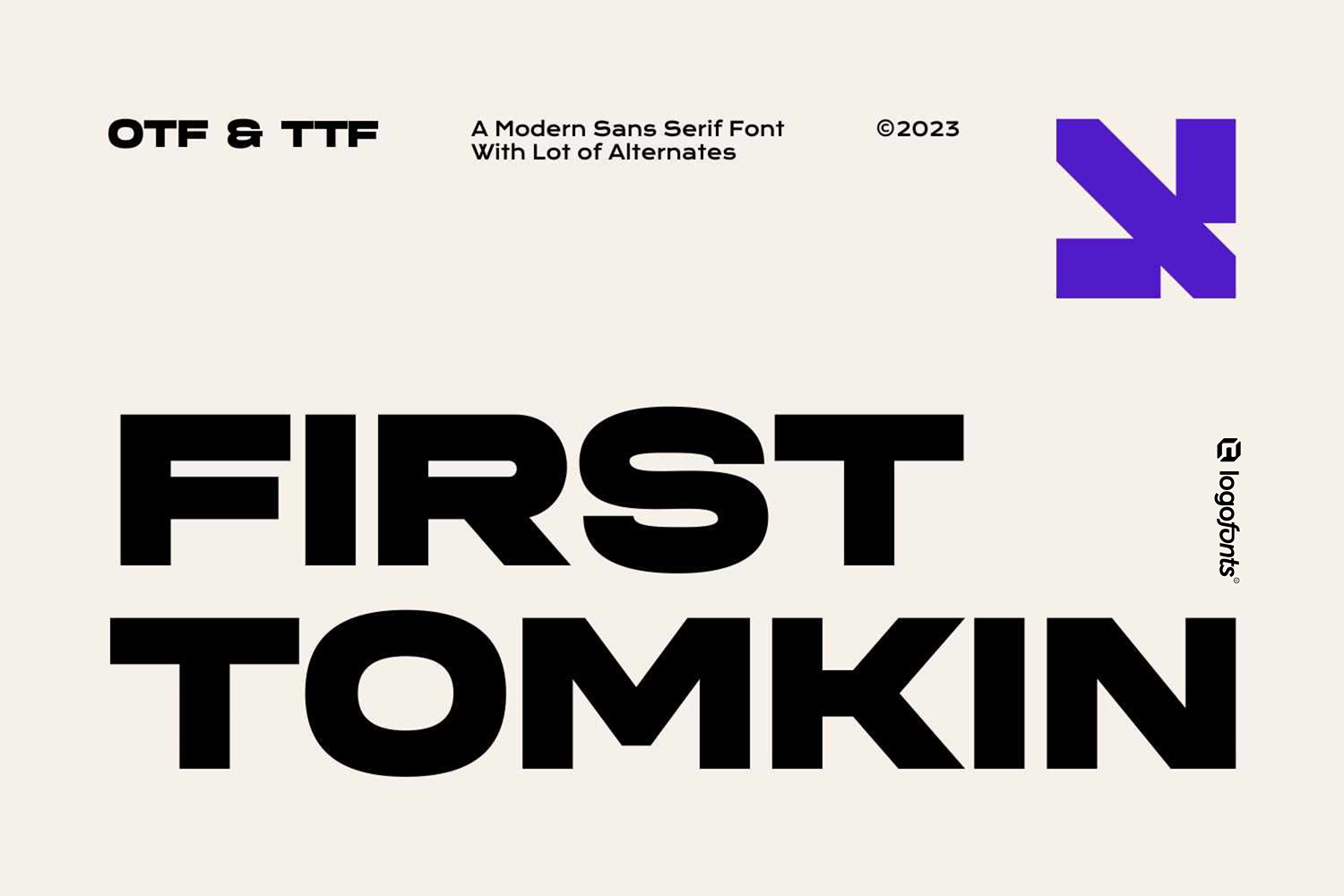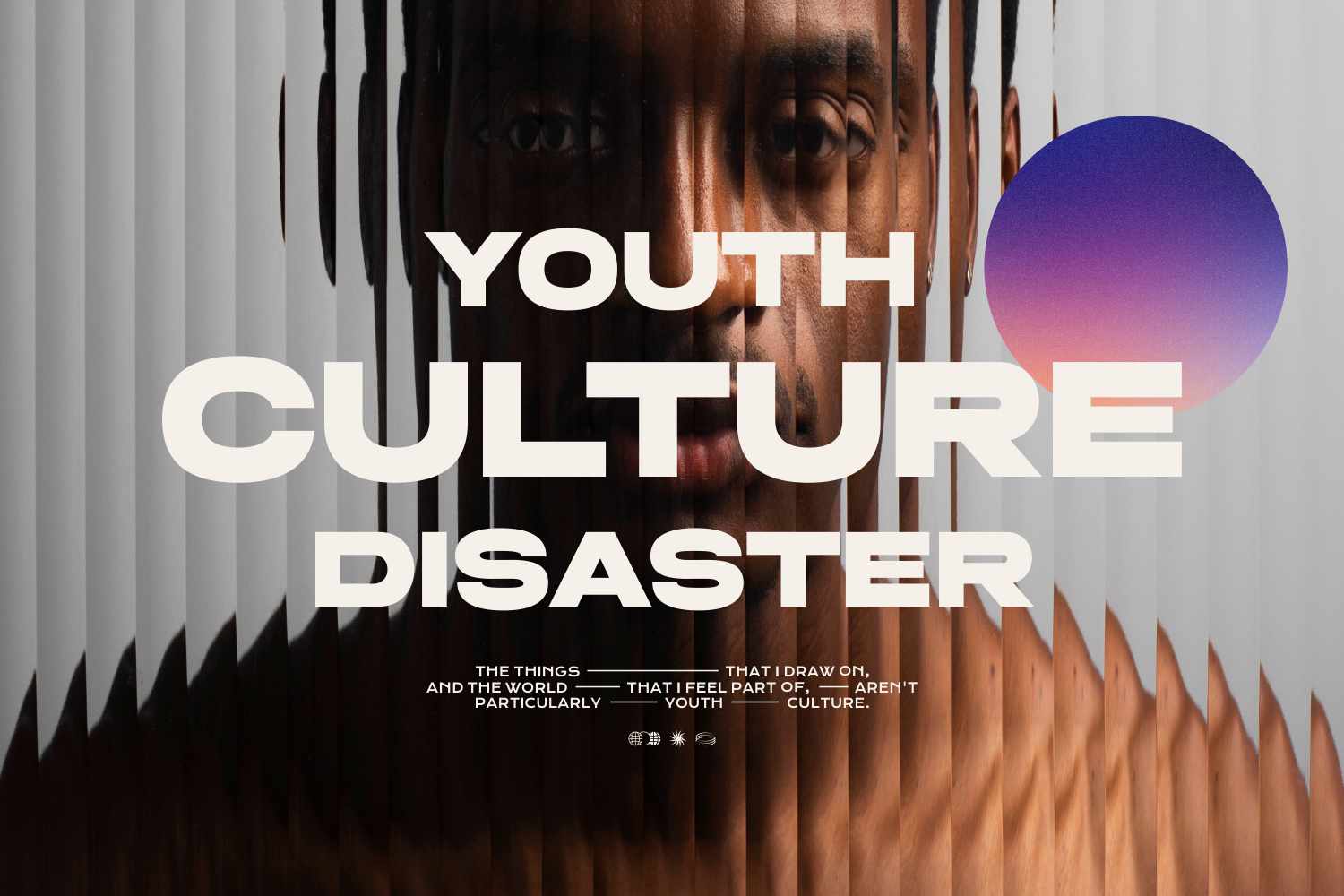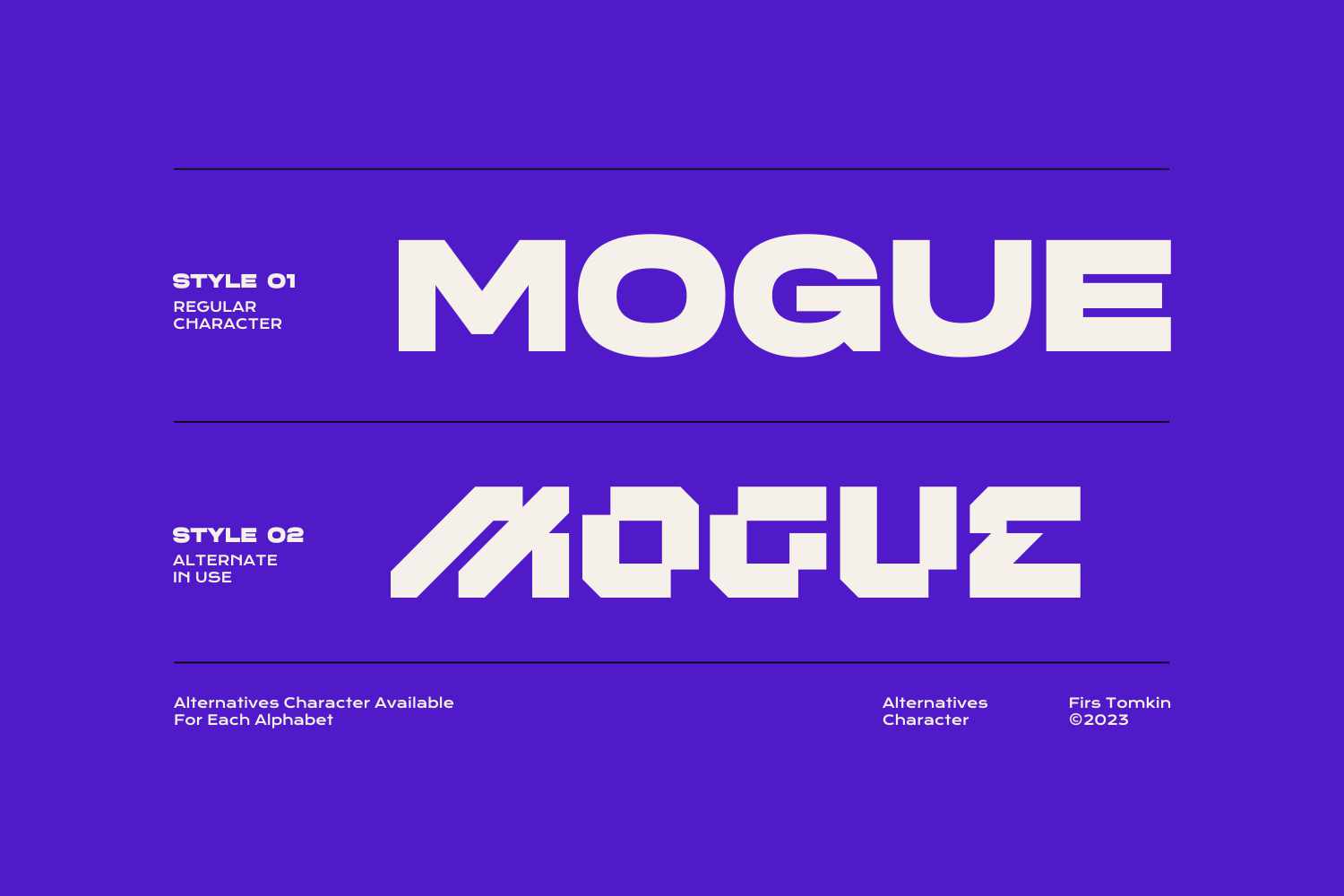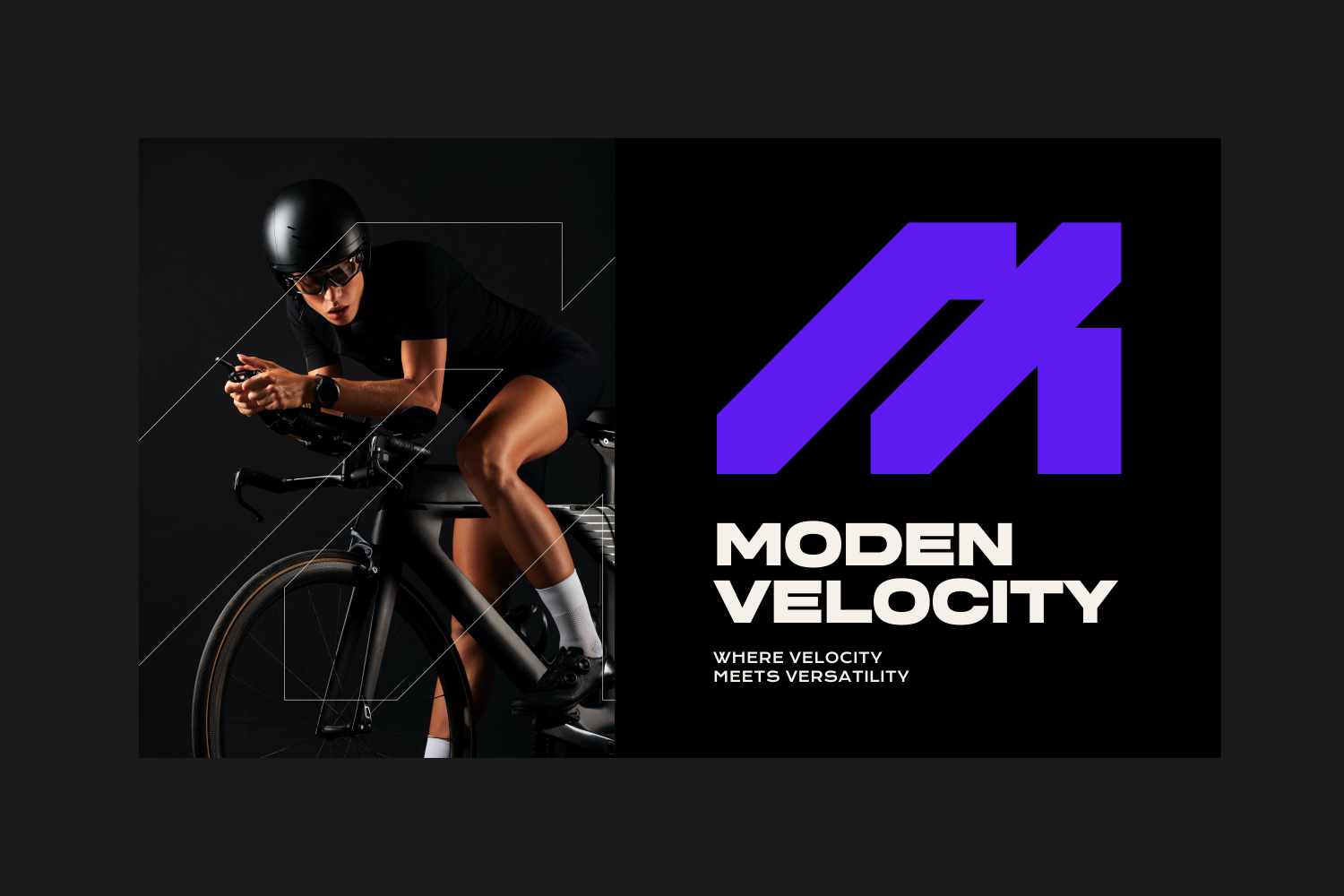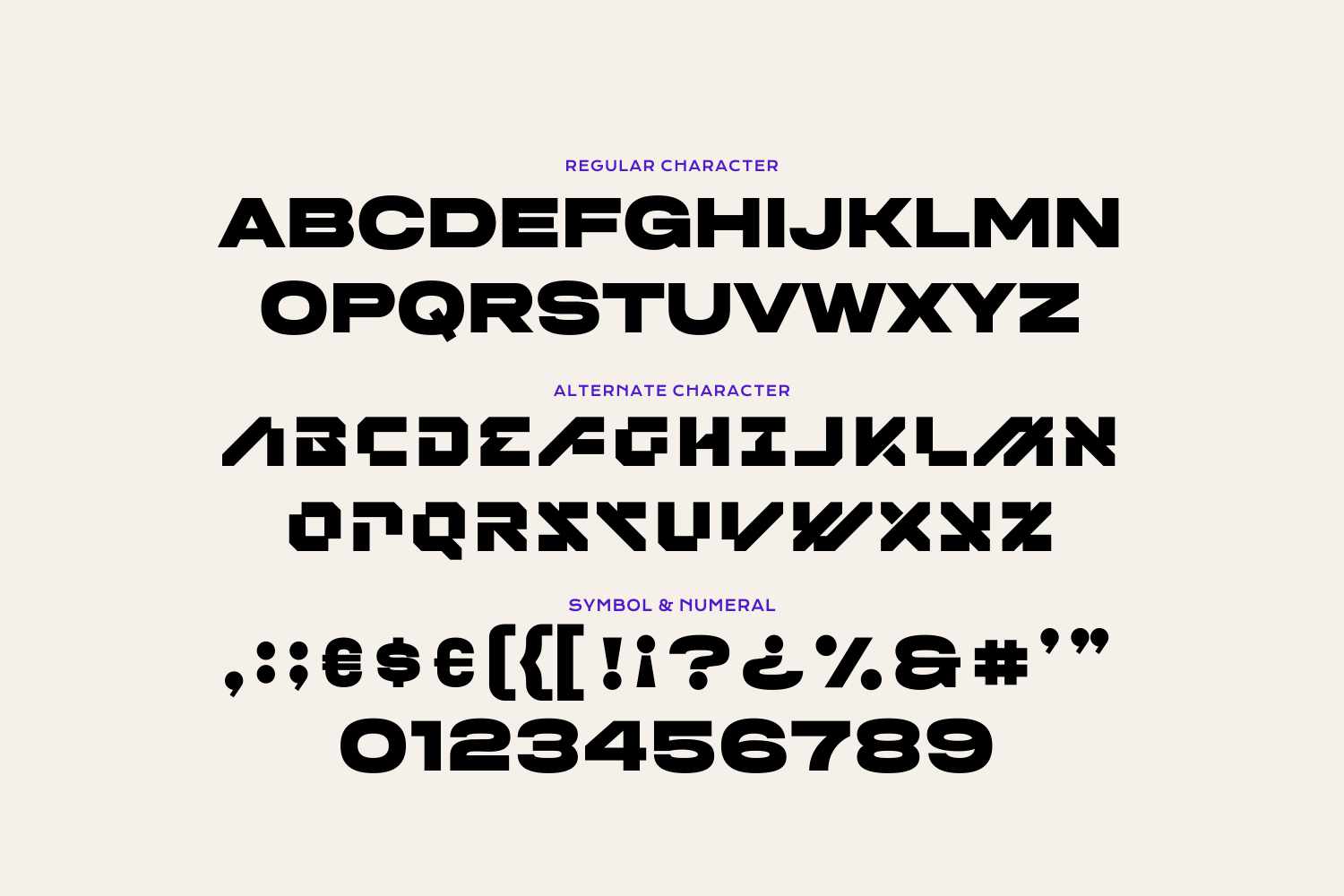
First Tomkin is a bold sans serif font that combines modern strength with futuristic edge. It features a powerful all-caps structure with clean, geometric curves and sharp terminals. Enhanced with striking alternate characters, First Tomkin offers a flexible visual identity system that is perfect for branding, editorial, music covers, fashion, and tech startups looking to leave a bold impression.
With its versatility and edgy personality, First Tomkin supports both clean typographic layouts and experimental headline treatments. Whether you want to go minimal or expressive, this font equips you with a unique set of alternates to create a standout typographic experience. It’s punchy, fresh, and ready to bring attitude to any visual project.
First Tomkin